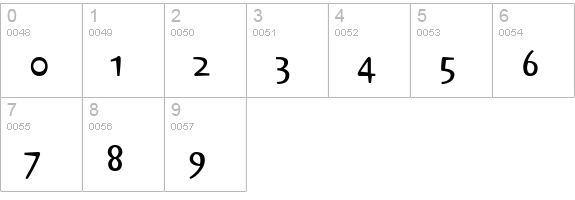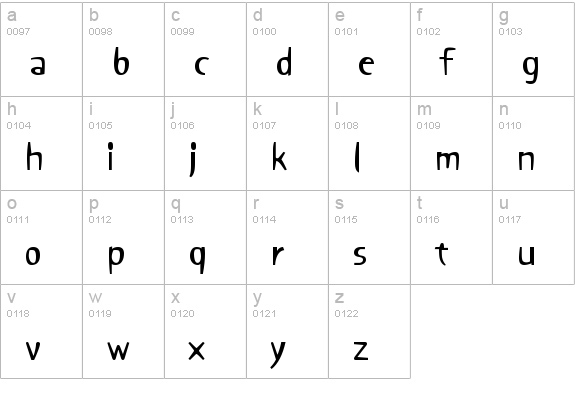
Sniff Bold Font Details
Sniff Bold is a strong, high-contrast variant in the Sniff typeface family \xE2\x80\x94 well suited to headlines, attention-grabbing titles, and strong calls-to-action.
Introducing Sniff Bold, a striking and versatile font that is sure to make a bold statement in any design project. With its clean lines and strong presence, Sniff Bold commands attention and adds a touch of sophistication to any text. This font boasts a unique combination of elegance and modernity, making it perfect for a wide range of applications. Whether you're creating a logo, designing a poster, or crafting a website, Sniff Bold will elevate your work to new heights. Featuring a generous x-height and well-defined letterforms, Sniff Bold is highly legible, ensuring that your message is delivered with clarity and impact. Its bold weight adds an extra layer of emphasis, allowing you to highlight key points and grab the viewer's attention. But what sets Sniff Bold apart is not just its exceptional design, but also its accessibility. This font is freely available to download at FontsMarket.com, making it accessible to designers of all levels. Whether you're a seasoned professional or just starting out, Sniff Bold is a valuable addition to your font library. So why wait? Download Sniff Bold today and unleash your creativity. With its boldness, elegance, and free availability, Sniff Bold is the perfect choice for any design project. Get ready to make a lasting impression with this exceptional font.